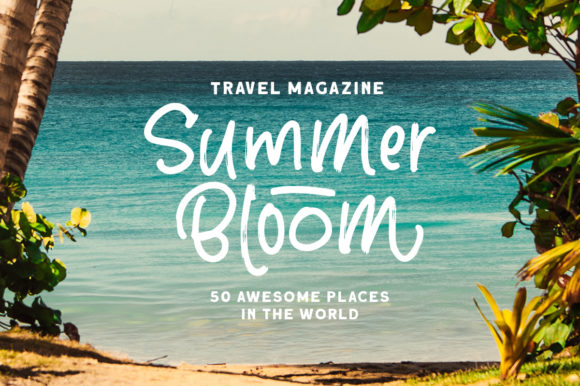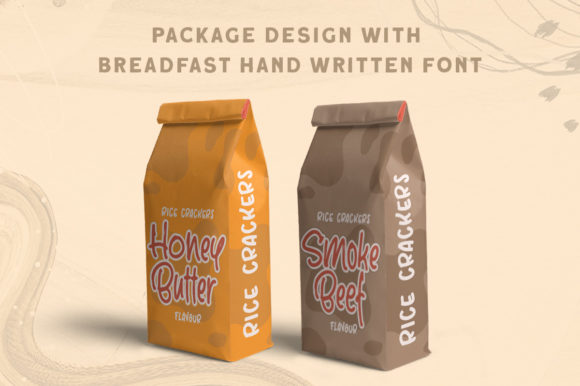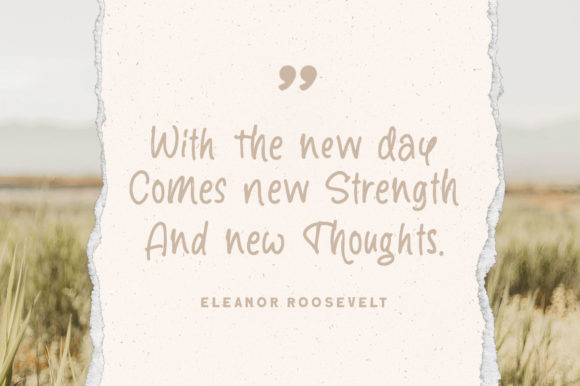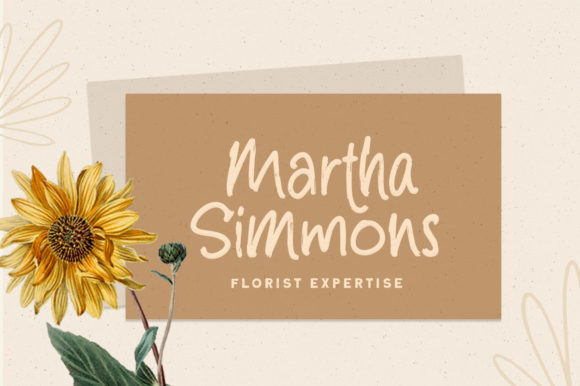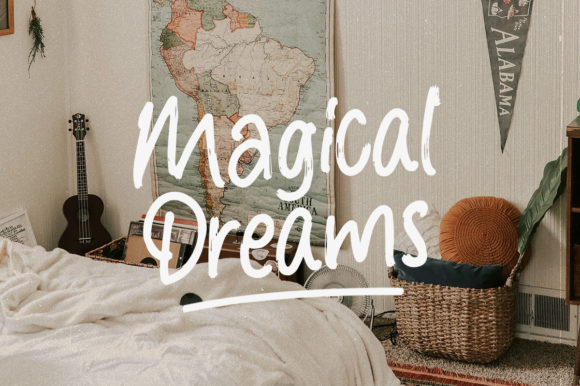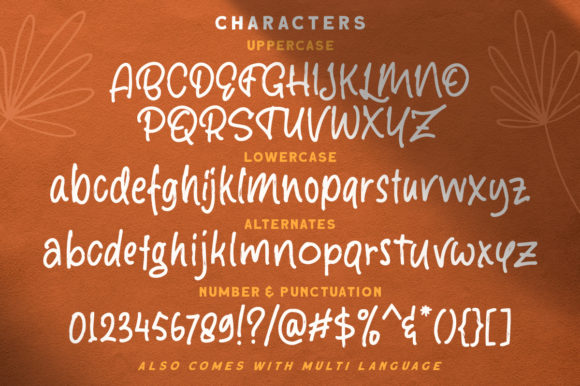
Breadfast Font: Elevate Your Designs with a Casual Handwritten Touch
Are you tired of using the same old fonts in your designs? Look no further than the Breadfast font, an organic and casual handwritten font that’s sure to take your creative projects to the next level. With its incredibly versatile design, Breadfast font fits a wide pool of designs, making it the perfect addition to your font collection.
What is Breadfast Font?
Breadfast font is a beautifully crafted handwritten font that’s perfect for designers and crafters looking to add a personal touch to their work. Its organic and casual design makes it ideal for a wide range of projects, from branding and advertising to packaging and digital media.
Key Features of Breadfast Font
- Organic and Casual Design: Breadfast font features an organic and casual design that’s perfect for creating a friendly and approachable vibe in your designs.
- Incredibly Versatile: This font is incredibly versatile and can be used in a wide range of designs, from elegant and sophisticated to playful and fun.
- Handwritten Style: Breadfast font has a beautiful handwritten style that’s perfect for adding a personal touch to your designs.
- Easily Readable: This font is easily readable, making it perfect for body text, headings, and titles.
How to Use Breadfast Font in Your Designs
Breadfast font is easy to use and can be incorporated into your designs in a variety of ways. Here are a few ideas to get you started:
- Branding and Advertising: Use Breadfast font to create eye-catching logos, taglines, and ad copy that will help your brand stand out.
- Digital Media: Add a personal touch to your digital media projects, such as social media graphics, blog posts, and email newsletters.
- Packaging Design: Use Breadfast font to create beautiful and eye-catching packaging designs that will help your products stand out on store shelves.
- Crafting and Scrapbooking: Add a personal touch to your crafting and scrapbooking projects with Breadfast font.
Benefits of Using Breadfast Font
There are many benefits to using Breadfast font in your designs. Here are a few:
- Unique and Creative: Breadfast font is a unique and creative way to add a personal touch to your designs.
- Easily Customizable: This font is easily customizable, making it perfect for designers who want to create unique and personalized designs.
- Time-Saving: Breadfast font is a time-saving solution for designers who want to create beautiful and professional-looking designs quickly and easily.
Tips for Getting the Most Out of Breadfast Font
Here are a few tips for getting the most out of Breadfast font:
- Experiment with Different Sizes and Colors: Experiment with different sizes and colors to find the perfect combination for your design.
- Pair with Other Fonts: Pair Breadfast font with other fonts to create a unique and visually appealing design.
- Use in Combination with Images: Use Breadfast font in combination with images to create a beautiful and eye-catching design.
Breadfast font is an organic and casual handwritten font that’s perfect for designers and crafters looking to add a personal touch to their work. With its incredibly versatile design, Breadfast font fits a wide pool of designs, making it the perfect addition to your font collection. Whether you’re working on a branding project, digital media design, or crafting and scrapbooking project, Breadfast font is sure to elevate your designs to the highest levels.